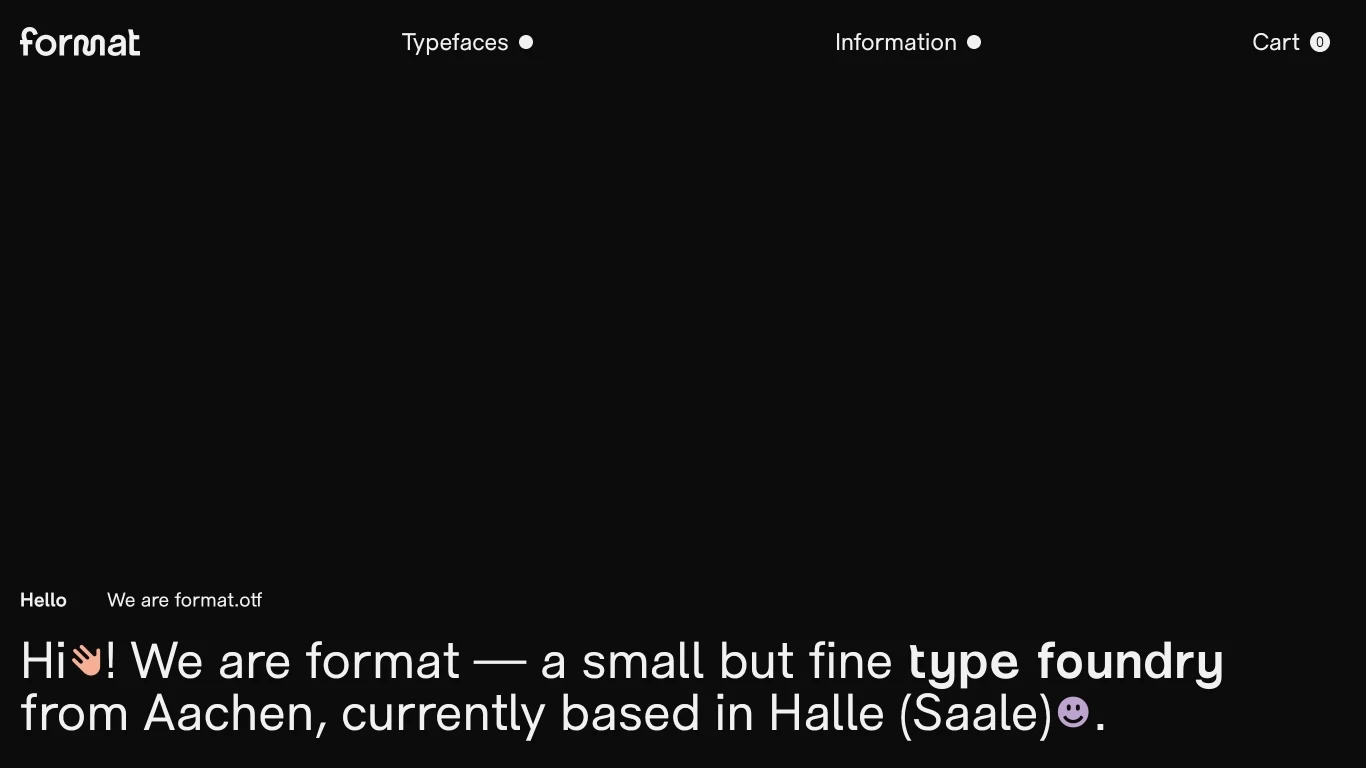
Format.otf
Germany
2020
Established in 2020, format.otf is a small, independent type foundry that is part of the design studio format.tif. They design contemporary yet functional typefaces, catering to those who appreciate modern design without compromising usability.